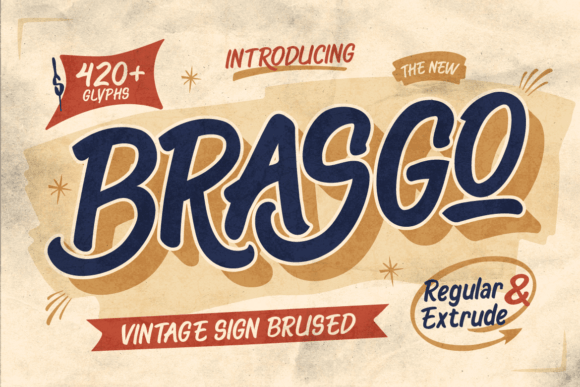
Bring Back the Vintage Vibes with Brasgo Font
Remember the thrill of stumbling upon a vintage sign while on a road trip? The nostalgic feeling it gives you is something that designers and artists often strive to recreate in their work. For those who want to tap into that classic charm, meet Brasgo Font, a unique blend of vintage and modern styles that’s perfect for adding a touch of nostalgia to your designs.
Brasgo Font is designed to evoke the feeling of a bygone era, with thick strokes and a slightly wavy look that’s sure to transport your audience back in time. With two styles to choose from – Regular and Extrude – this font is incredibly versatile and can be used for a wide range of creative projects, from branding and posters to invitations and promo materials.
Key Features of Brasgo Font
- Unique Characteristics: Brasgo Font features a unique blend of modern and traditional elements, with a distinctive flair that sets it apart from other sans-serif fonts.
- Font Metrics: Brasgo Font has a x-height of 0.45u.e.m., an average stem width of 0.25u.e.m., and a maximum height of 0.85u.e.m.
- Designer’s Intent: The font is designed to be highly legible and versatile, making it suitable for a wide range of applications, from body text to headlines and titles.
Brasgo Font Review
As a designer, I recently had the chance to work with the Brasgo Font, and I must say it’s a mixed bag. Here are my thoughts.
- Unique aesthetic: The Brasgo Font has a distinctive, hand-drawn feel that can add a lot of character to your designs.
- Wide range of languages: Brasgo supports a wide range of languages, making it a great option for global brands.
- High-quality glyphs: The font’s glyphs are well-designed and look great at various sizes.
- Limited font weights: Brasgo only comes in a few font weights, which may not be suitable for designs that require a lot of variation.
- Not ideal for small text: The font’s unique style can make it difficult to read at small sizes, which may be a problem for designs that require a lot of small text.
- Lack of italics: Brasgo does not have an italic version, which can be a limitation for designs that require a lot of emphasis.
Overall, I think the Brasgo Font is a great option for designers who want to add a unique touch to their designs. However, it may not be the best choice for designs that require a lot of variation or small text. With a little creativity and flexibility, the Brasgo Font can be a great addition to any designer’s toolkit.
Tips for Getting the Most Out of Brasgo Font
Here are some tips to get the most out of Brasgo Font:
- Use Brasgo Font for headings and titles to add a touch of elegance.
- Combine Brasgo Font with other fonts to create a unique and visually appealing design.
- Experiment with different font sizes and styles to create contrast and visual interest.
Brasgo Font is perfect for:
- Business cards and branding materials.
- Magazine and newspaper headlines.
Alternatives to Brasgo Font for Designers
Montserrat is a sans-serif font designed by Julieta Ulanovsky. It’s a versatile font suitable for various applications, from body text to headings. Montserrat is a great choice for designers who want a clean and modern look.
Comparison to Brasgo Font: Montserrat has a more geometric and modern feel compared to Brasgo Font’s sleek and sophisticated look. While Brasgo Font has a more elegant and refined feel, Montserrat is more suitable for contemporary designs.
Inter is a sans-serif font designed by Rasmus Andersson. It’s a highly legible font with a neutral and clean design. Inter is ideal for body text and is suitable for a wide range of applications, from digital products to print materials.
Comparison to Brasgo Font: Inter has a more minimalist and neutral feel compared to Brasgo Font’s sophisticated and elegant look. While Brasgo Font is more suitable for luxury and high-end designs, Inter is more versatile and suitable for everyday use.
What is the recommended font size and line height for using the Brasgo Font?
The recommended font size and line height for using the Brasgo Font depend on the specific application and design context. However, as a general guideline, we recommend using font sizes between 12pt and 24pt, with a line height of at least 1.5 times the font size. This will help ensure optimal readability and legibility in digital and print materials.